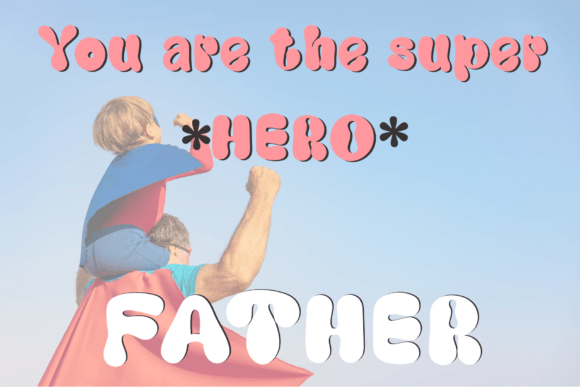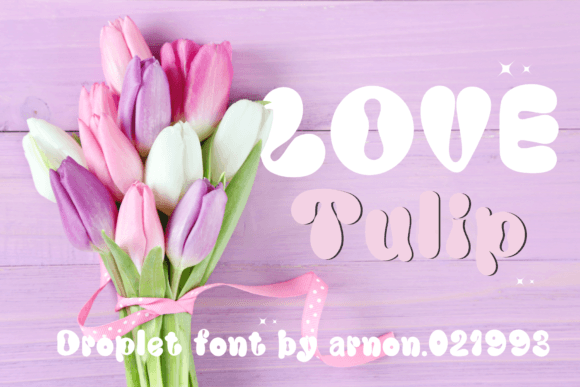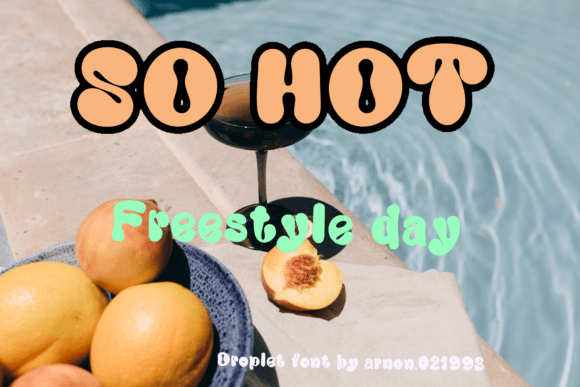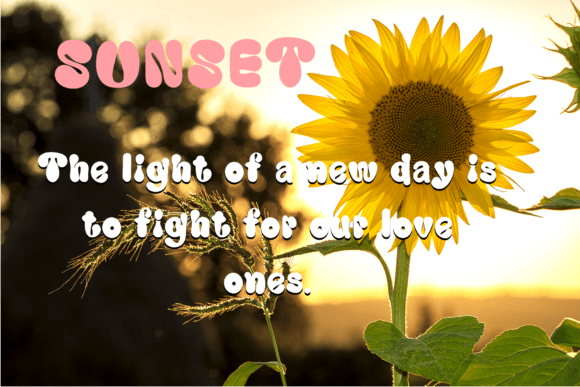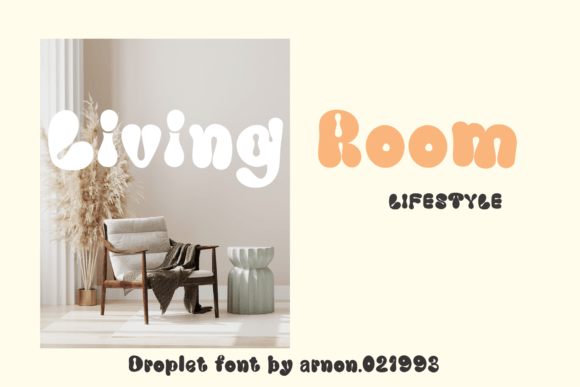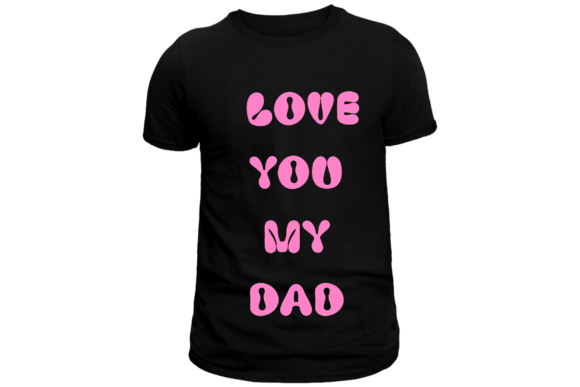
Introduction to Droplet Font
Droplet is a playful and stylish font with a youthful spirit.
Droplet is a playful and stylish font with a youthful spirit. It is suitable for both professional-looking projects such as branding designs, labels, websites, and business cards as well as casual des